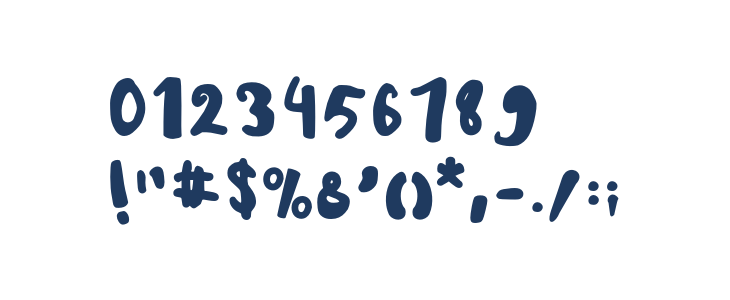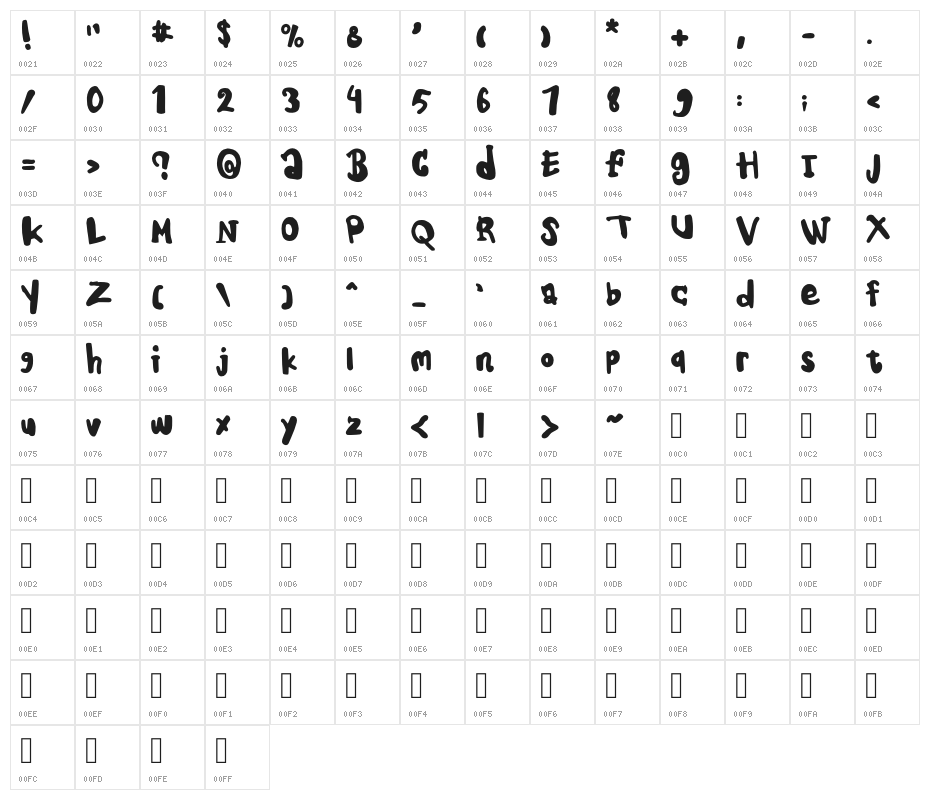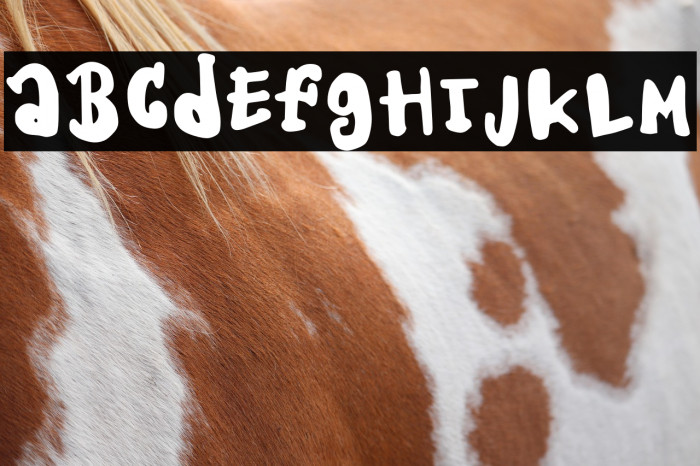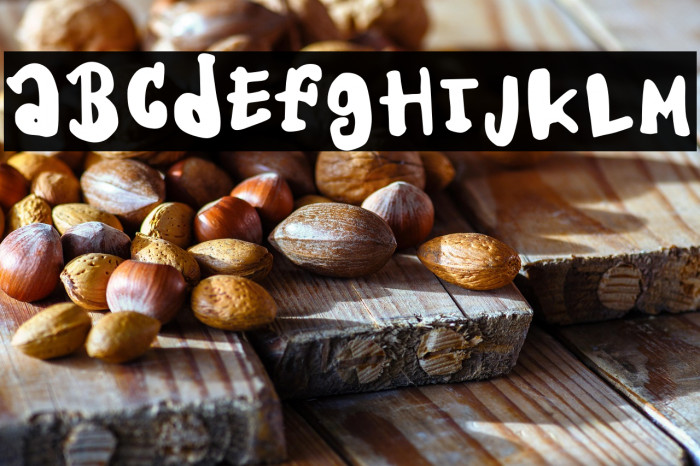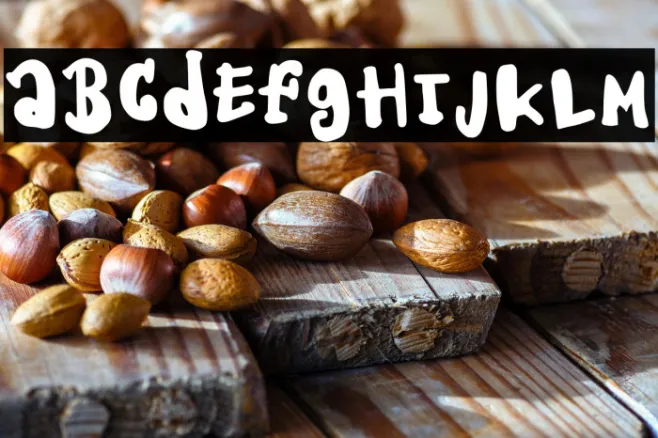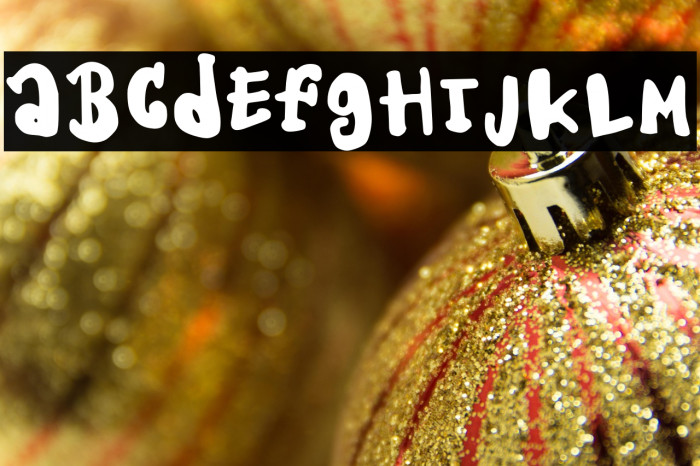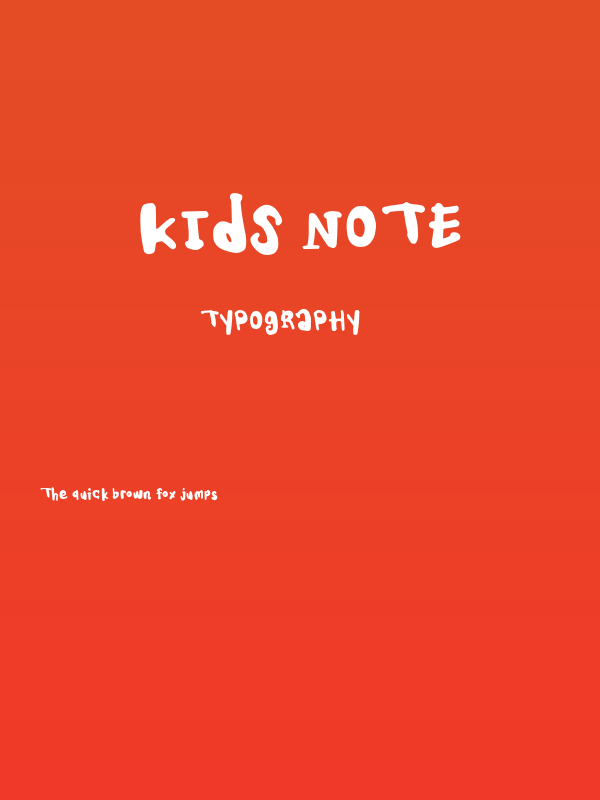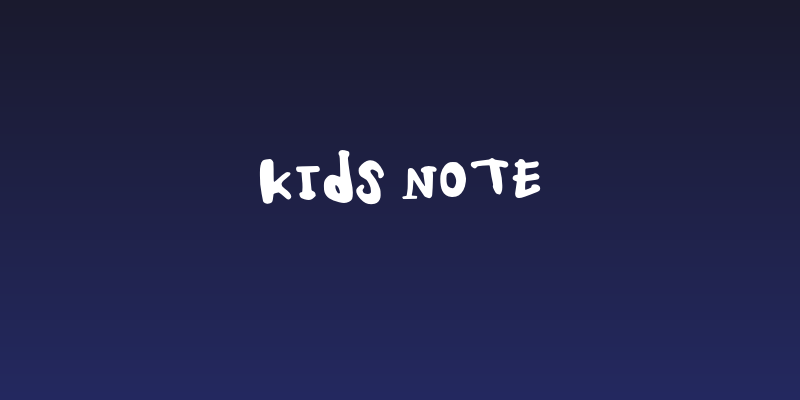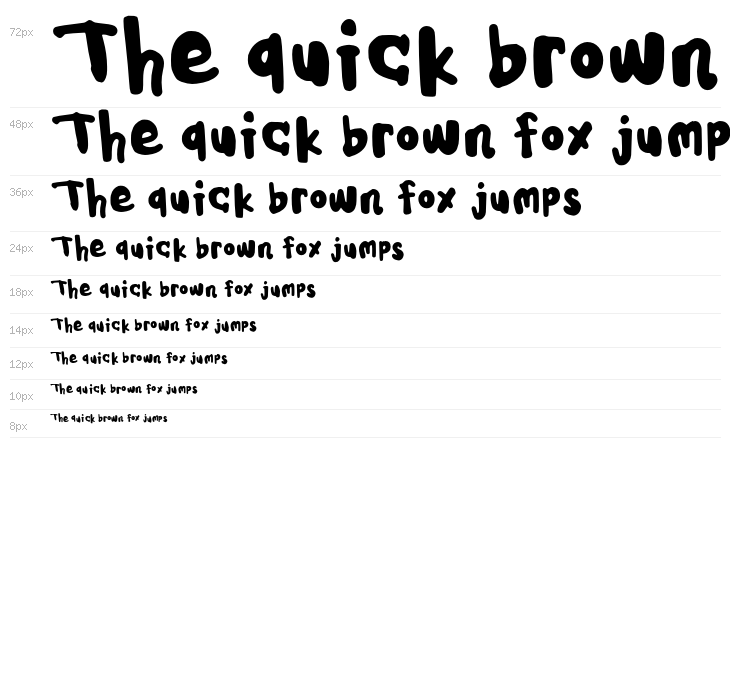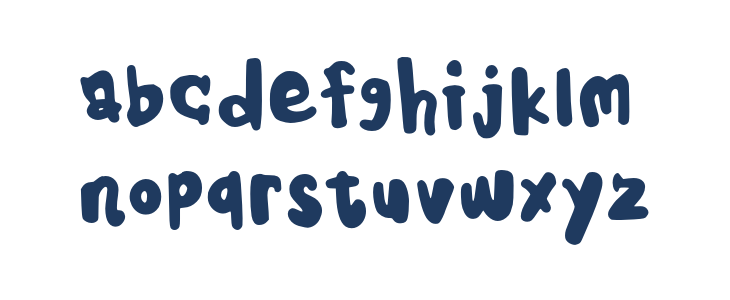
Kids Note Font
Kids Note Description
This playful and whimsical font features bold, rounded characters that evoke a sense of fun and creativity. The letters are irregular and slightly uneven, giving them a hand-drawn appearance that is both charming and approachable. The uppercase and lowercase letters maintain a consistent style, with exaggerated curves and a slightly cartoonish feel. Numbers and special characters follow the same playful design, making the font versatile for various uses. The overall look is informal and friendly, perfect for projects aimed at children or those seeking a lighthearted aesthetic.
Overall StylePlayful, Whimsical, Hand-drawn
Use CaseHeadlines, Posters, Children's materials
Proposed ProjectsIdeal for children's books, educational materials, playful branding, and creative posters.